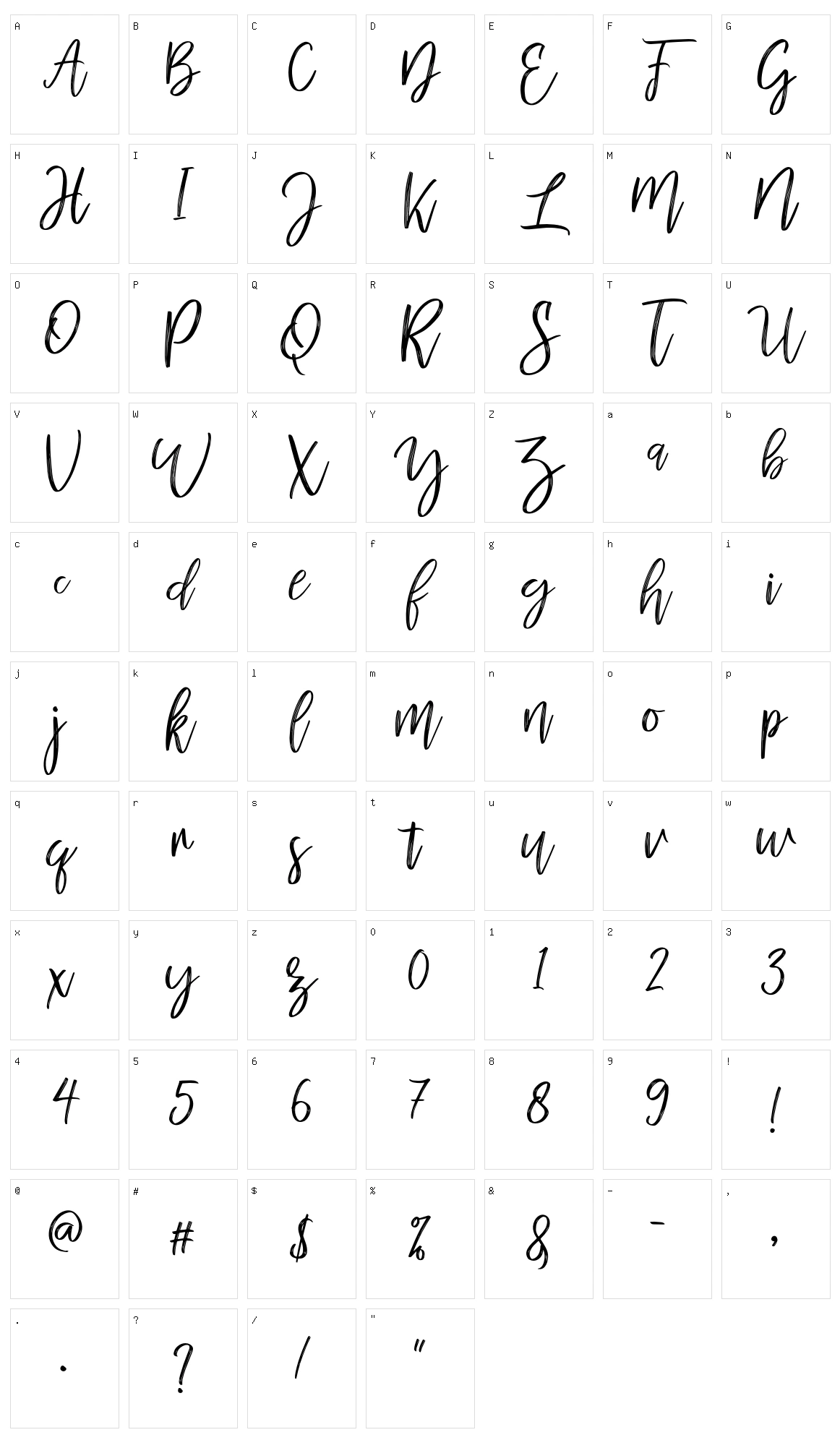
Introducing Mellony brush script font which has a elegant hand lettering brush style. So it looks natural like a handmade, mellony family is unique because have a more choice characters, like a swash, end characters and many more. This font is best used for your design project that has the concept of fun, girly, romantic and elegant. Can also be applied to the design of a logotype, header website, wedding logo, romantic design, make some lettering a quote, t-shirt design etc.
Mellony family font has two font styles are similar but a different character, namely is mellony regular and mellony dry brush.
Mellony family deserve to be one of your fonts collections, because it is unique, elegant and has many options of alternative glyphs for your fresh designs.
Features :
Character Set A-Z
Numerals & Punctuations (OpenType Standard)
Accents (Multilingual characters)
Standart Ligature
Stylistic Alternates
Apercase Alternates
SS01
SS02
SS03
SS04
SS05